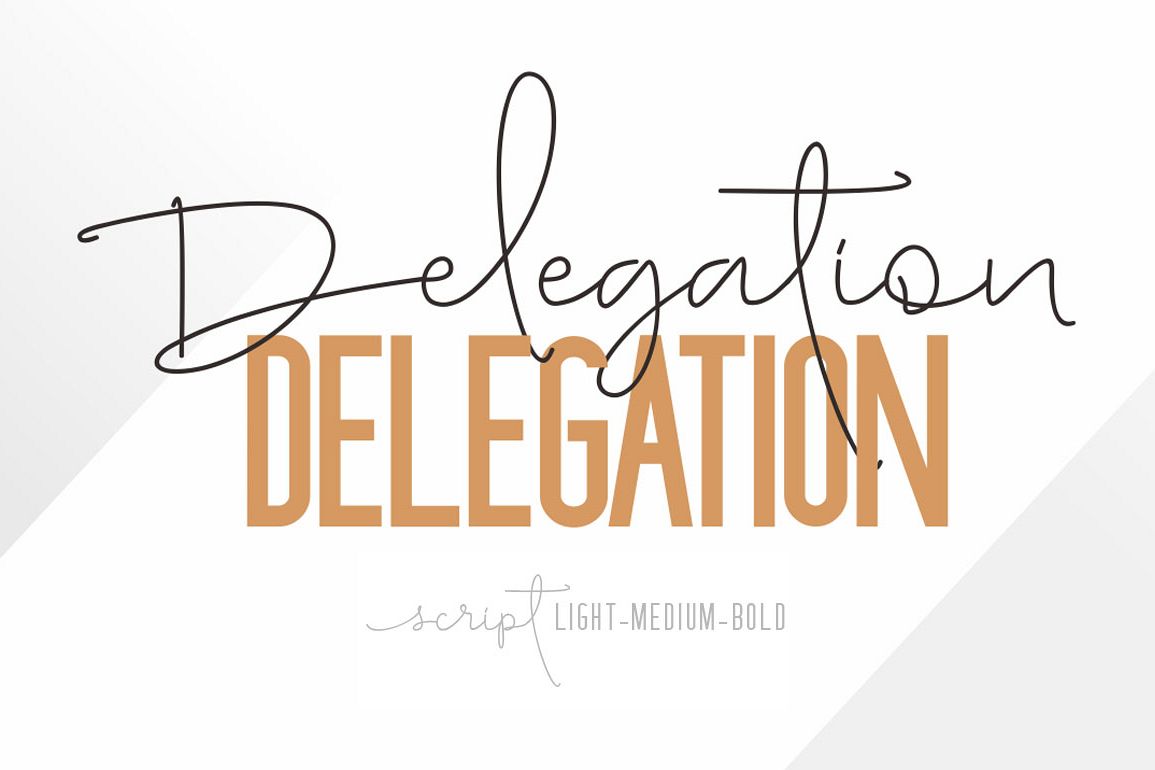
Delegation
Delegation fonts are very beautifully designed that are combined with Delegation Script and San. It is suitable to be used for media promotion Especially on social media, also no less beautiful when used for magazines, brochures, trademarks, etc.Delegation Features:
• Multilanguange
• Ligatures (Delegation Script)
• Alternates
• PUA Encoded
• Numerals and punctuation